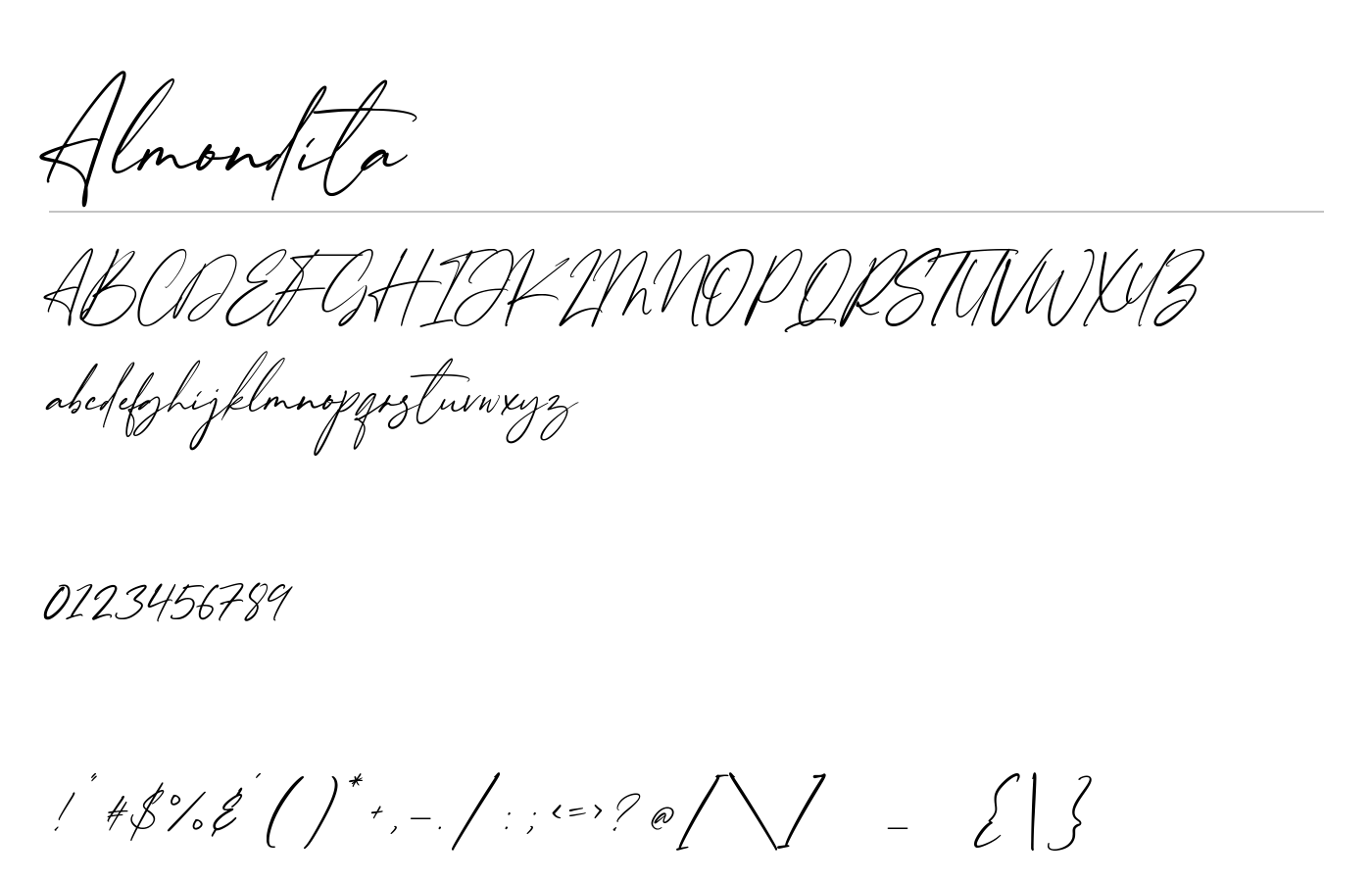
Almondita is a delicate, handwritten script font characterized by its thin, flowing strokes and elegant, slightly slanted letterforms that evoke a personal, artistic touch. Its light weight and airy spacing make it ideal for stylish branding, invitations, and editorial headlines where a refined, graceful mood is desired. This font works beautifully to convey creativity and sophistication in contexts that benefit from a natural, hand-crafted feel.
Almondita Font
About Almondita Font
| Font family | Almondita Font |
| Designer | Balpirick 2020 |